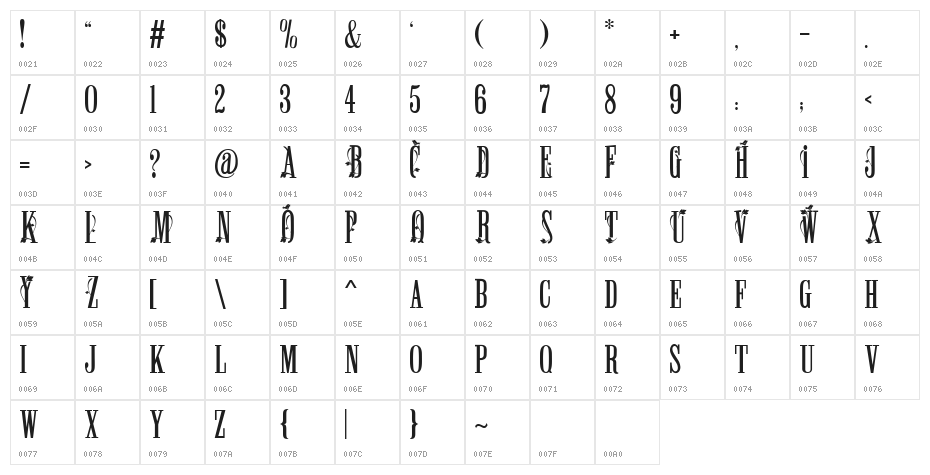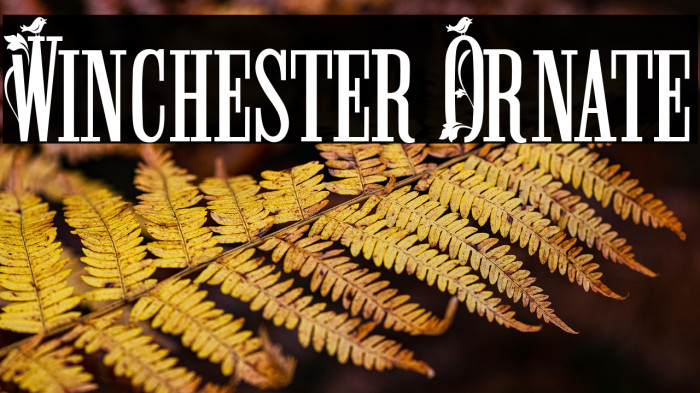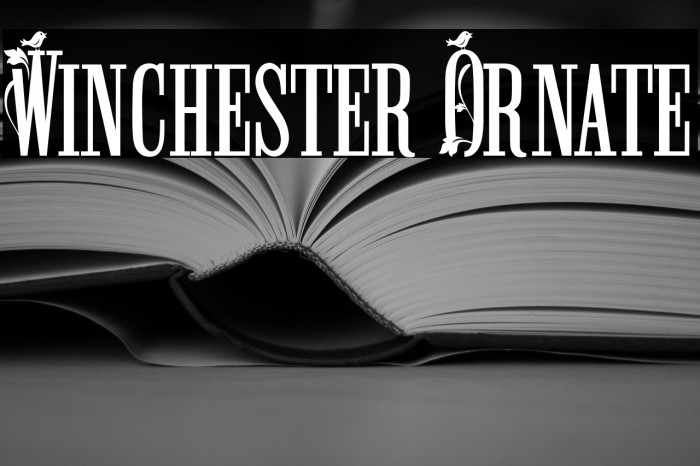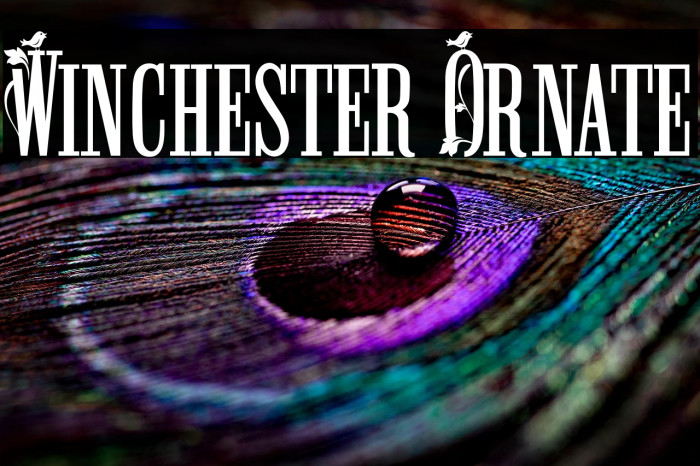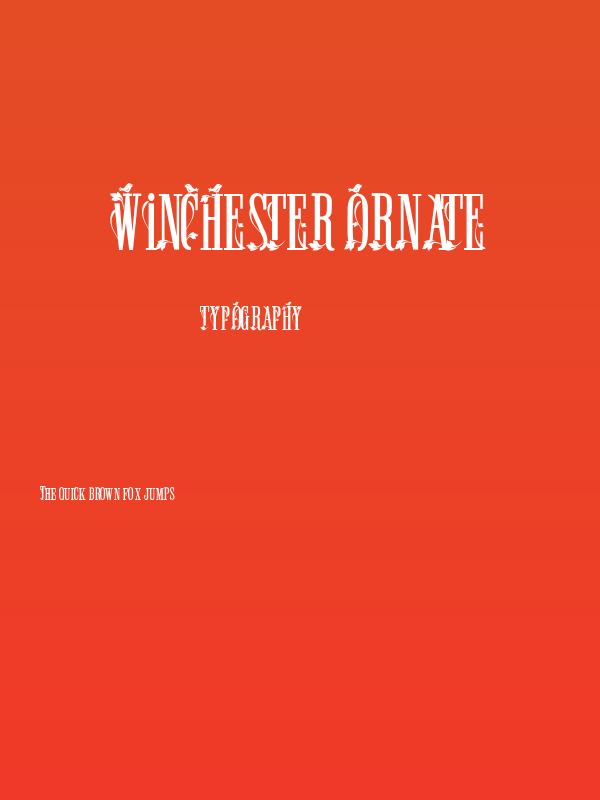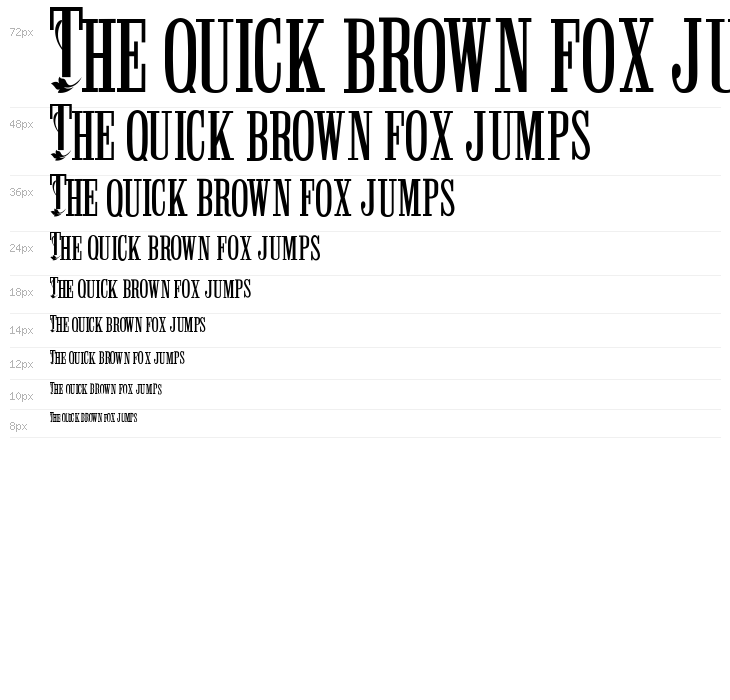
Winchester Ornate Font
Winchester Ornate Description
This font features an ornate and decorative style, characterized by intricate flourishes and embellishments that extend from the main strokes of the letters. The uppercase letters are particularly elaborate, with vines and leaf-like details that add a touch of elegance and sophistication. The lowercase letters maintain a more straightforward design, providing a balance between complexity and readability. The numerals and special characters are consistent with the overall decorative theme, making this font suitable for artistic and creative projects. Its unique style is reminiscent of vintage or classical typography, offering a sense of grandeur and formality.
| Overall Style | Vintage, Decorative |
| Use Case | Headlines, Logos, Decorative text |
| Proposed Projects | Ideal for wedding invitations, luxury branding, vintage posters, and decorative signage. |